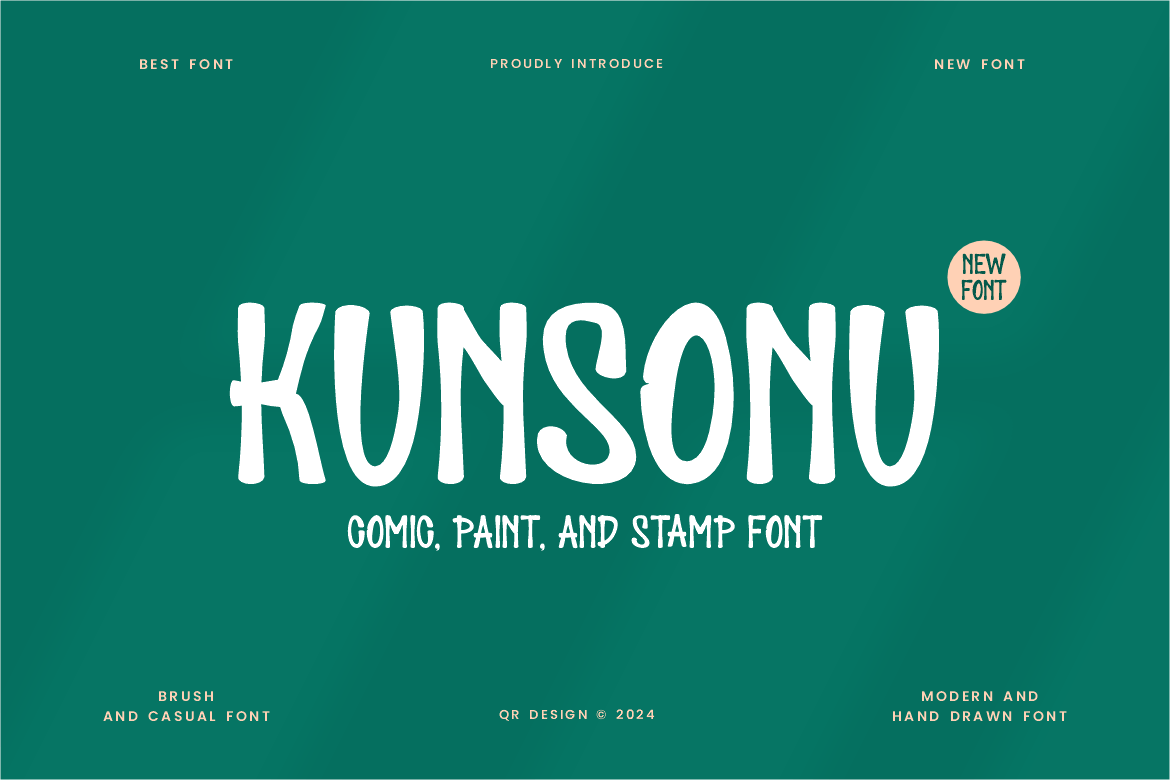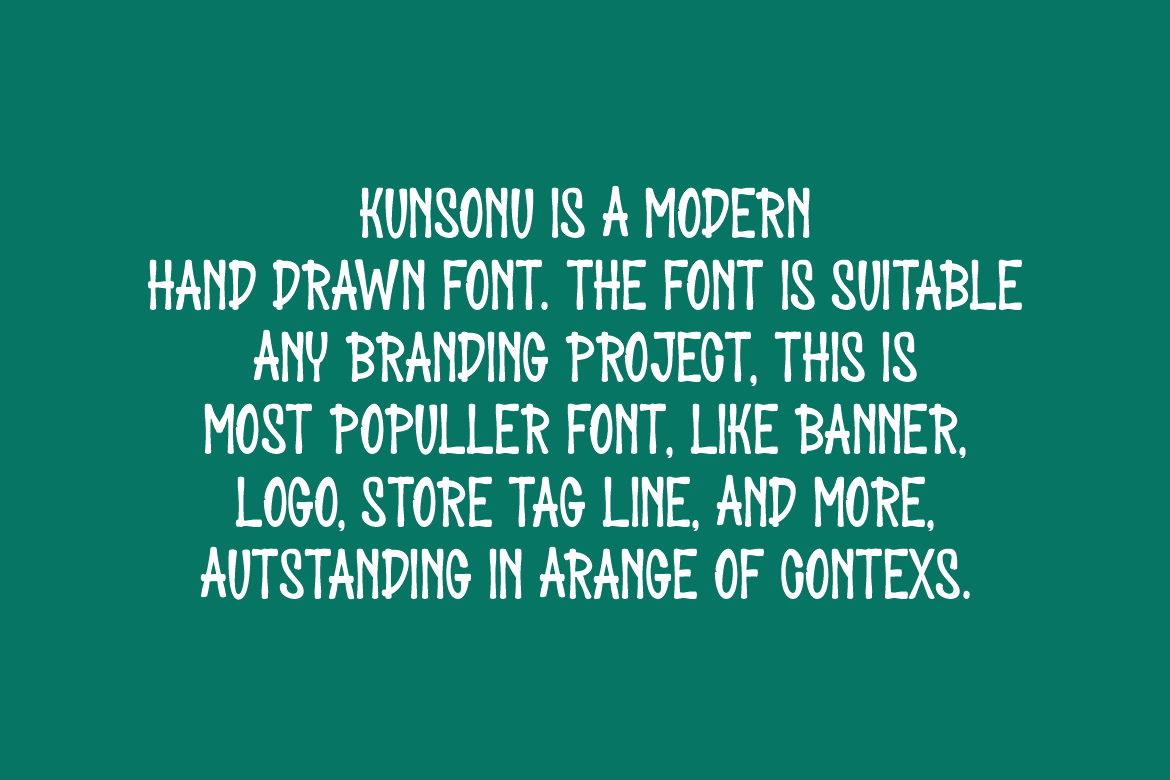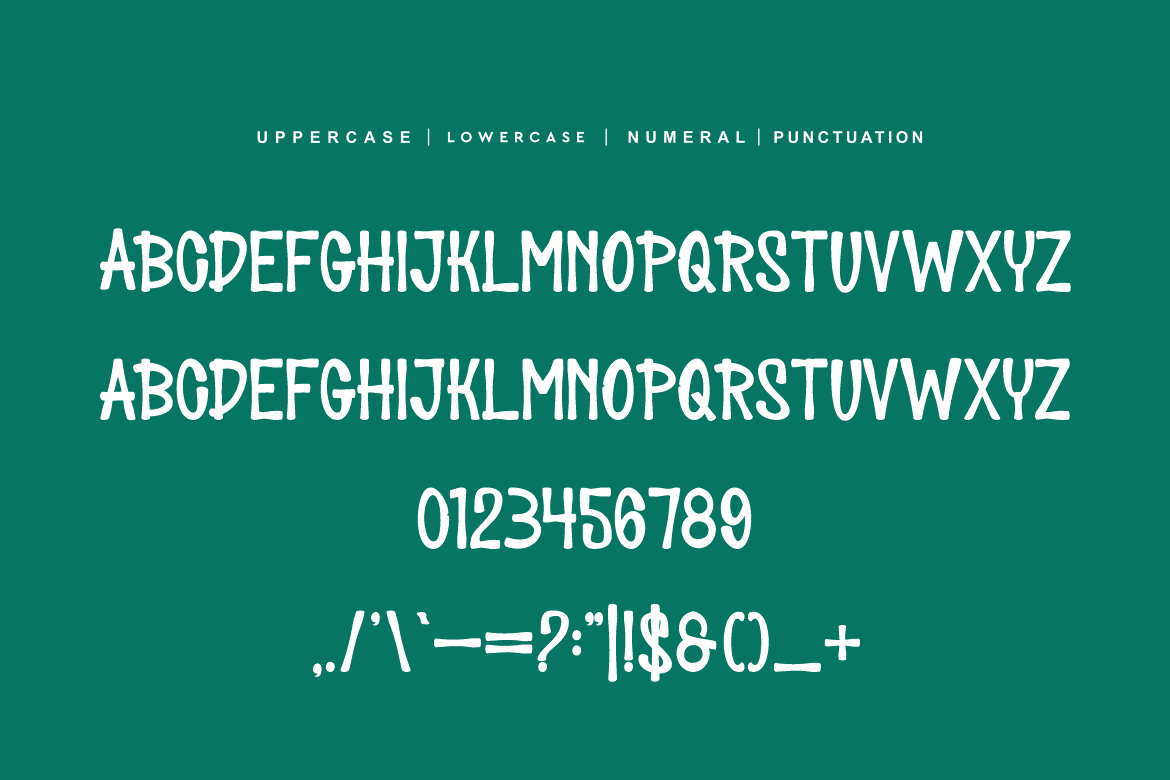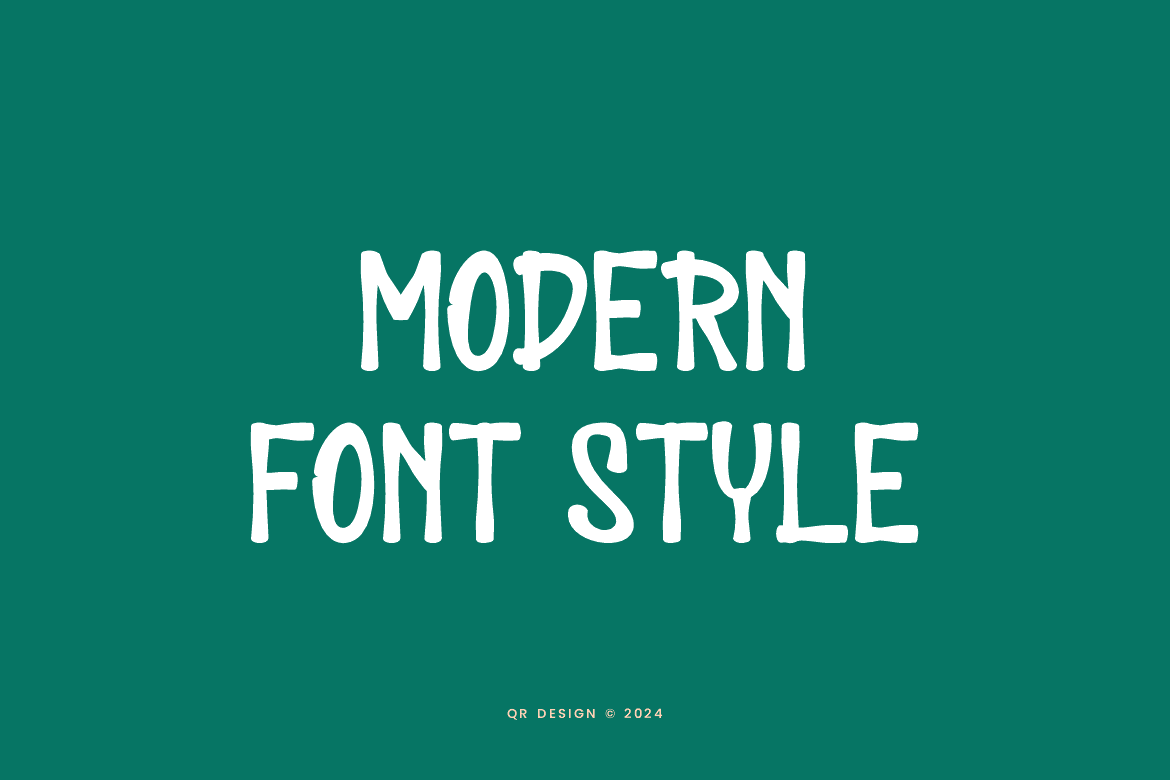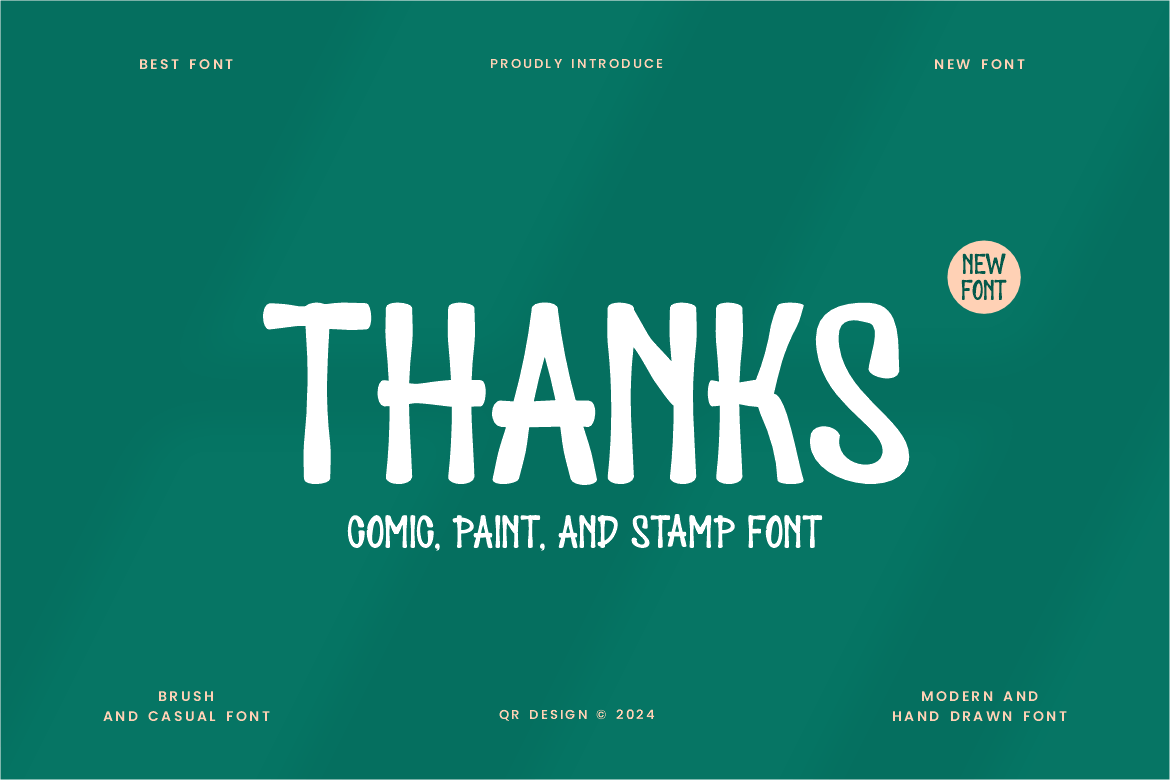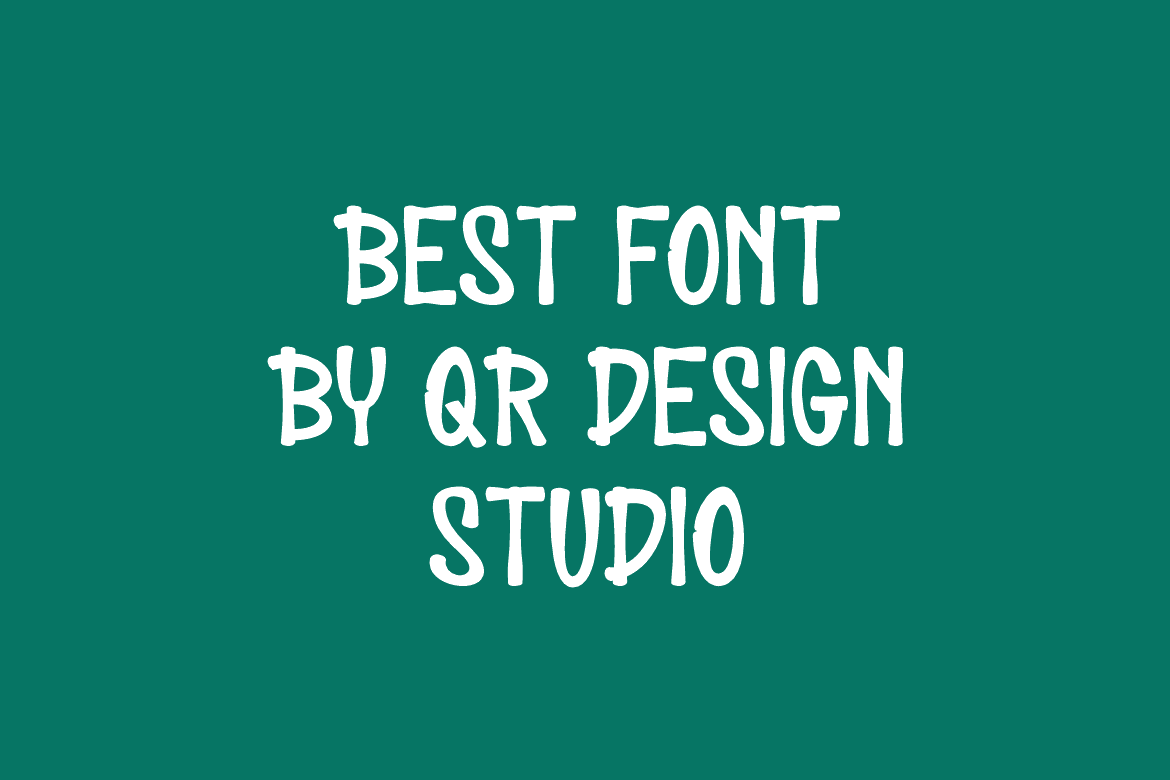
Kunsonu – Paint & Stamp Font FVF5UHD
**Kunsonu Font** is a modern and authentic display font.
The font is suitable for any branding project like poster, logo, sport, and many more.
Outstanding in a wide range of contexts.